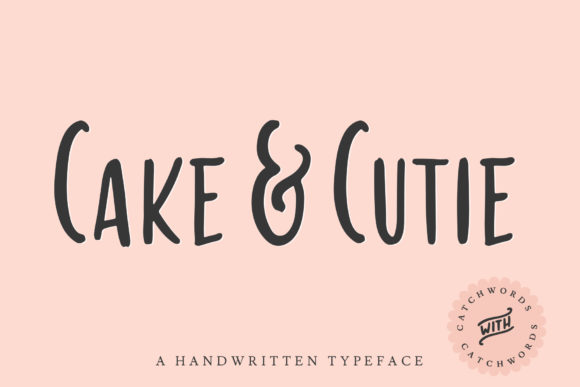
The Cake & Cutie Font: A Sweet Addition to Your Design Toolbox
I’ll never forget the design project that led me to discover the Cake & Cutie font. I was working on a branding project for a bakery, and I needed a font that was both playful and elegant. I spent hours scouring the internet for the perfect font, but nothing seemed quite right. That was until I stumbled upon Cake & Cutie, an all-purpose hand-drawn typeface that quickly became my go-to for the project. In this article, I’ll share my experience with Cake & Cutie, including its features, how to use it, and some similar fonts you might enjoy.
An Honest Review of Cake & Cutie
- ✨ The hand-drawn feel of Cake & Cutie adds a touch of warmth and personality to any design project.
- ✅ The font comes with a set of handy catchwords, which can be used to add a playful touch to your designs.
- 🎉 The smooth edges of the font make it perfect for vinyl cutting with Silhouette, Cricut, and other cutting machines.
- 💻 The font is easy to read and works well in a variety of contexts, from headings to body text.
While Cake & Cutie is an excellent font, it’s not without its quirks. Here are a few things to keep in mind:
- 🤔 The font can be a bit too playful for very formal or professional designs. Use it judiciously!
- ⚠️ The catchwords are provided as a separate font, which can be a bit inconvenient if you’re used to having them built into the main font.
The Story Behind Cake & Cutie
Cake & Cutie was designed by a team of creative designers who wanted to create a font that was both playful and elegant. The font was inspired by the classic hand-drawn fonts of the past, but with a modern twist. The designers spent countless hours perfecting the font, ensuring that it was both beautiful and functional.
Q: Is Cake & Cutie a script font?
A: While Cake & Cutie has some script-like features, it’s actually a hand-drawn typeface that’s more akin to a sans-serif font.